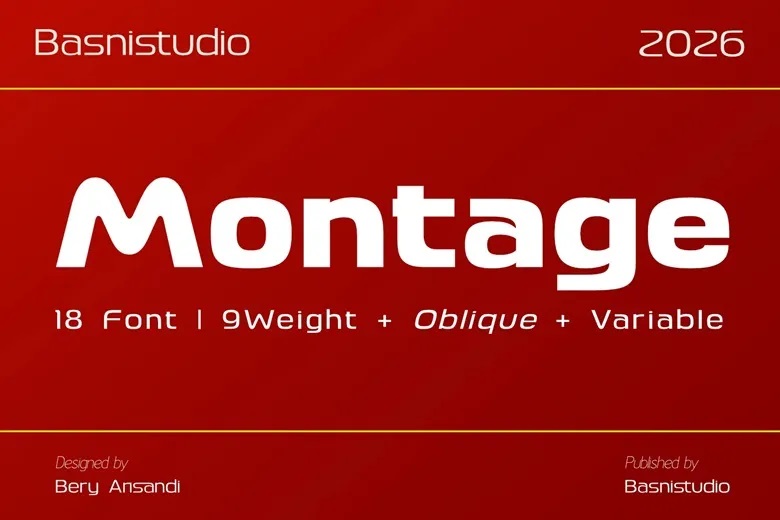
Montage Sans Serif Font
Montage is a modern sans serif font that is built on a simple idea: clean geometry can still feel inviting. Its precise shapes and smooth, expressive curves create a look that feels quick, smart, and naturally modern. The result is a typeface with a flexible personality. It looks professional for tech companies, energetic for sports brands, and refined for premium products.
Each letter is carefully balanced for great readability and a unique rhythm that lifts any design. This is more than a typeface. It’s a tool for brands that want to look forward-thinking, reliable, and future-ready.